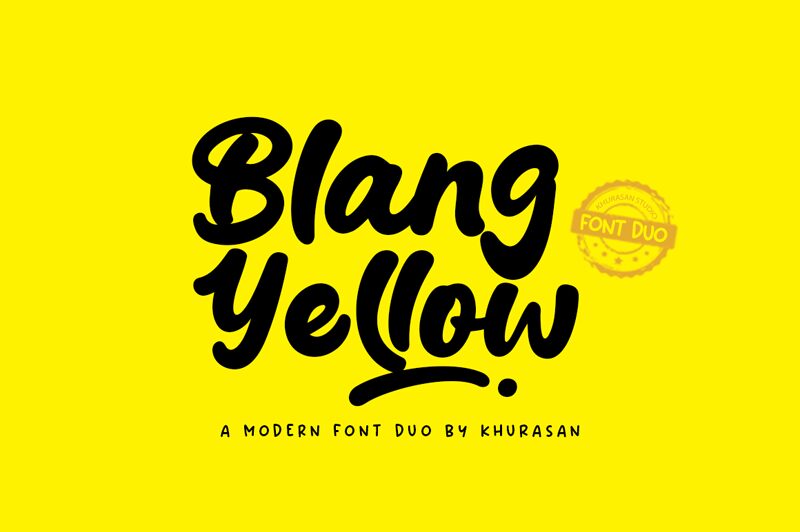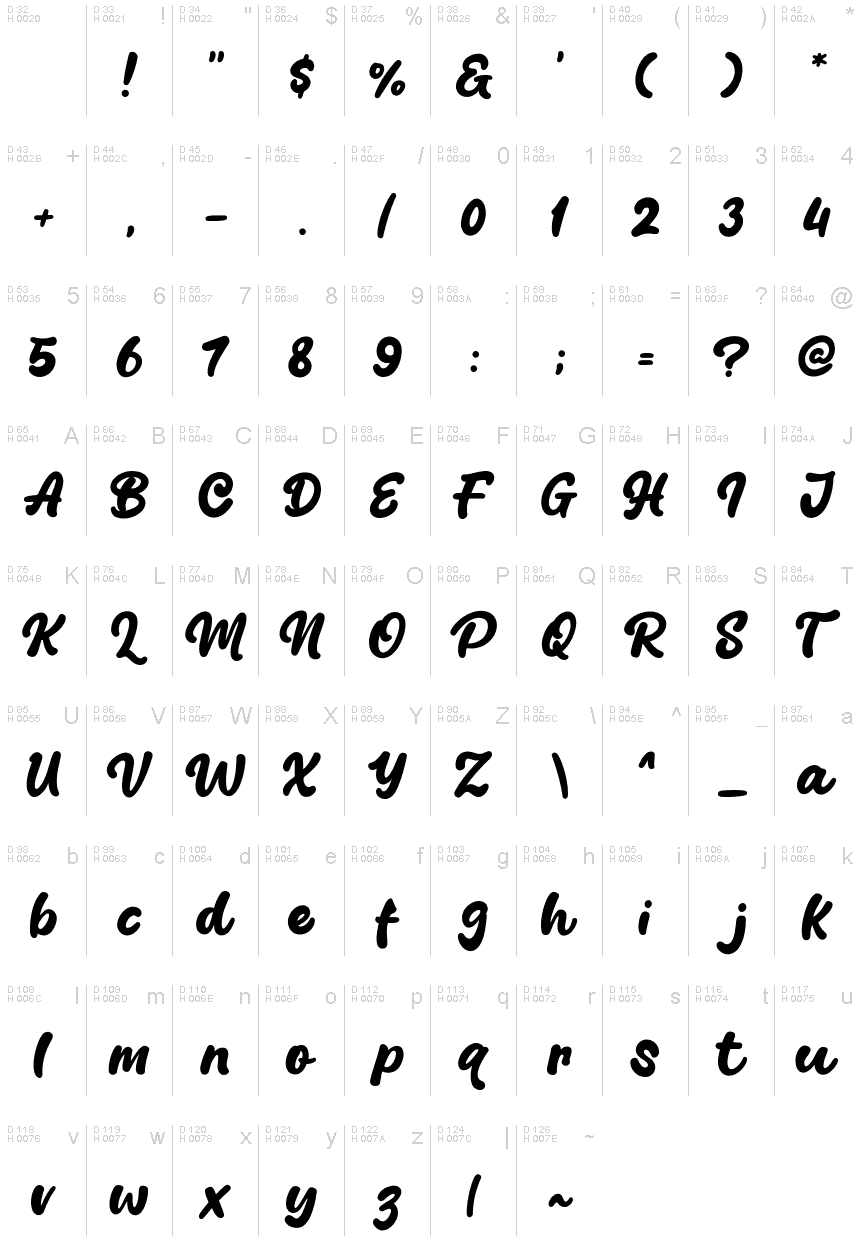
Blang Yellow
Discover Khurasan's Blang Yellow, a bold and modern script font perfect for adding character to your designs. From logos and branding projects to wedding invitations, this stylish text will make any project stand out.